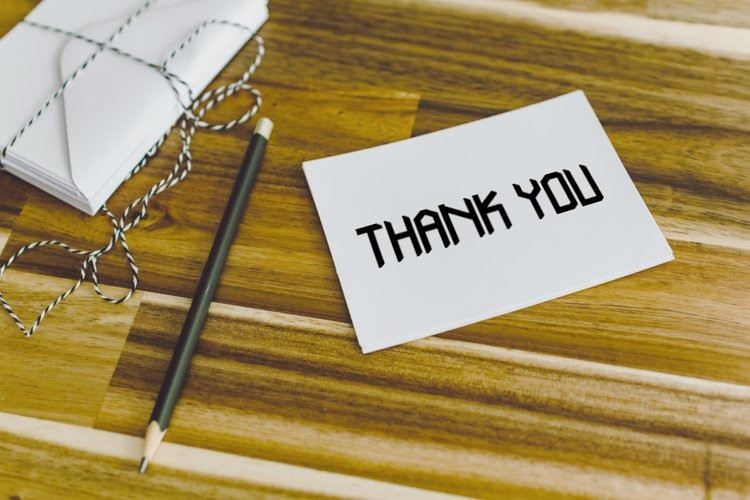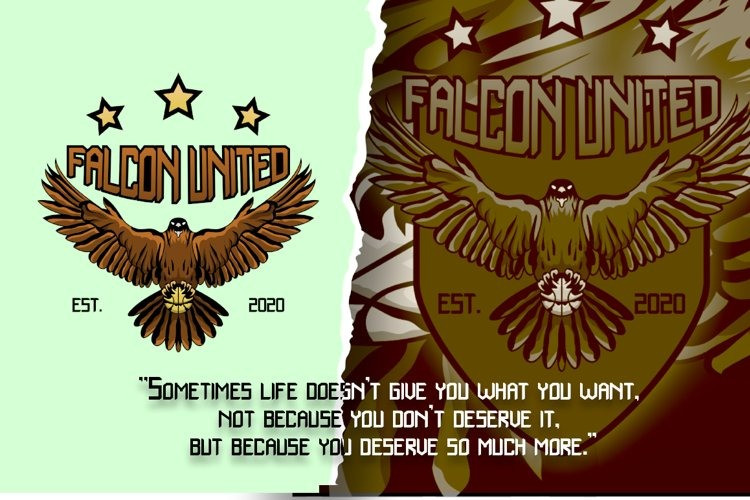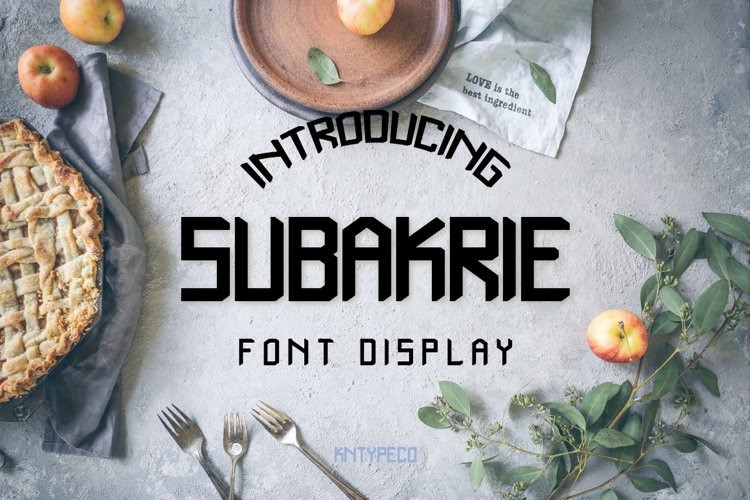
Subakrie Display Font
Subakrie is a bold and vintage display font, perfect for a variety of designs. Add this font to your favorite creative ideas and notice how it makes them come alive!